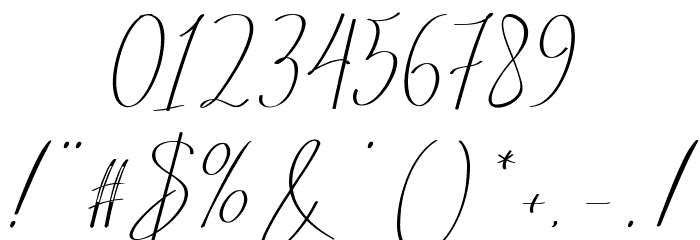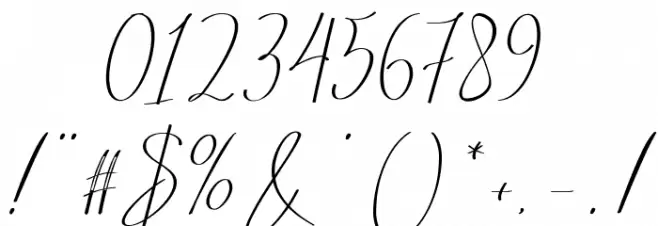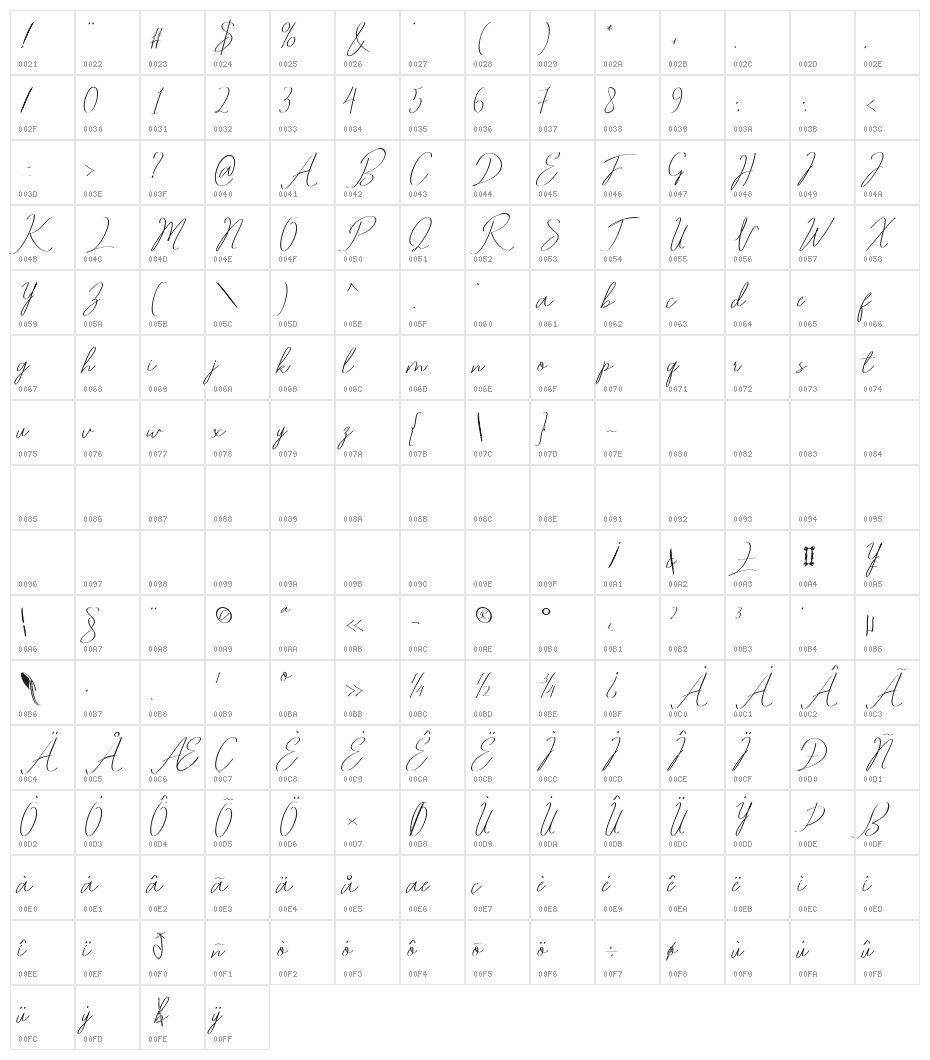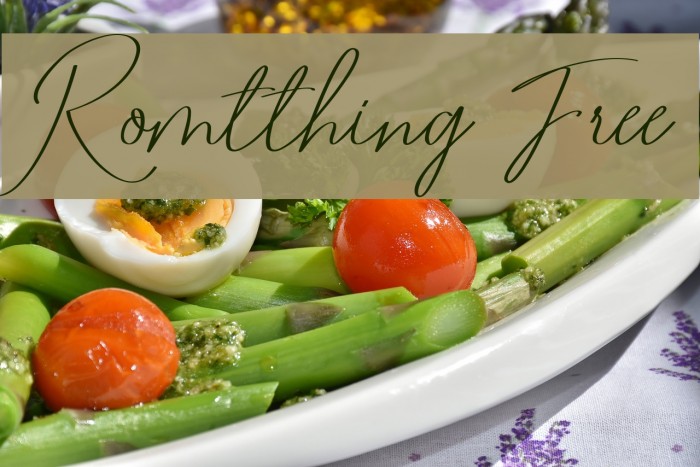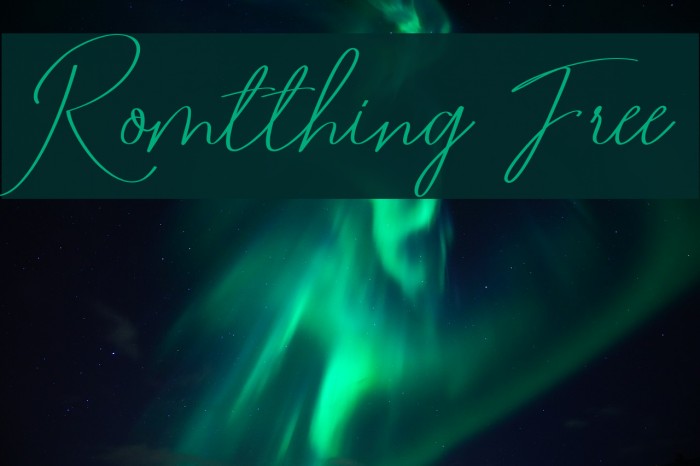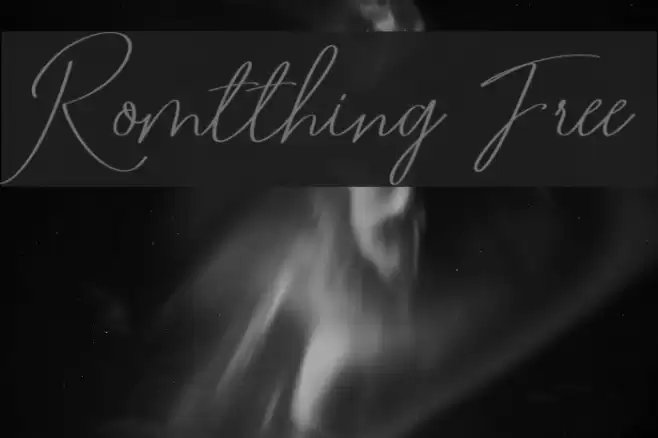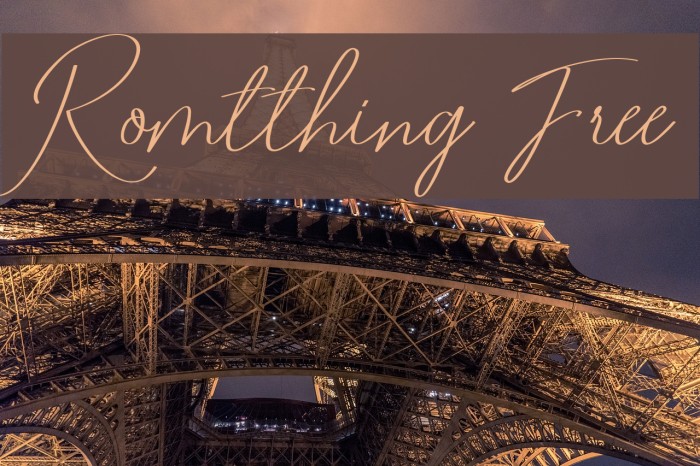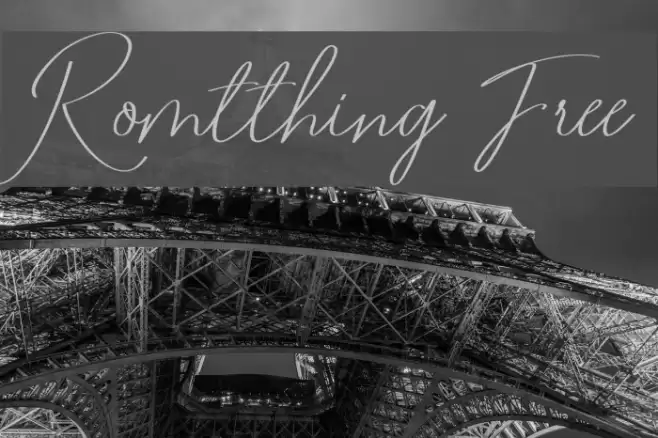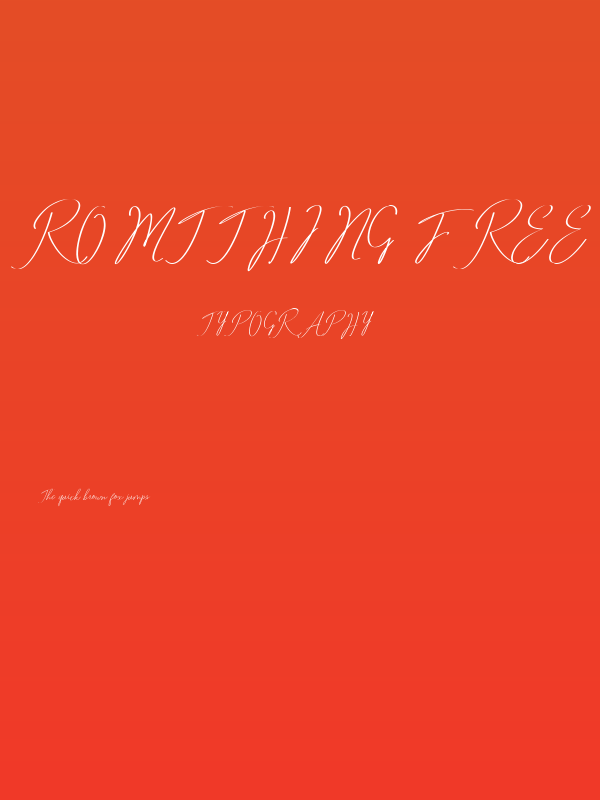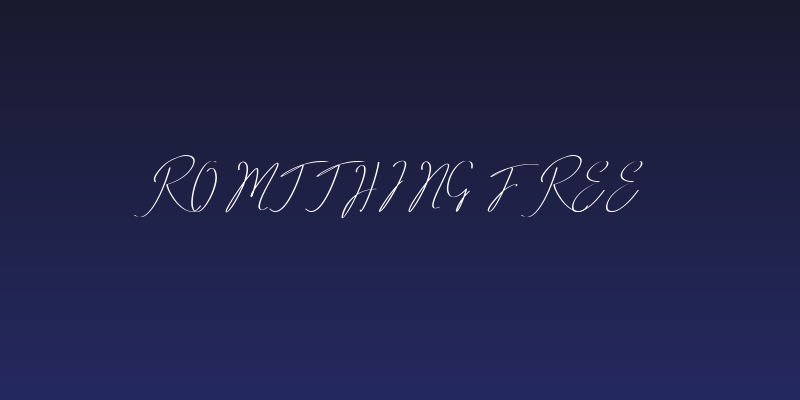
Romtthing Free Font
Romtthing Free Description
This font is an elegant and flowing script style that captures the essence of classic calligraphy. The letters are connected in a smooth, cursive manner, with each character exhibiting a graceful and fluid motion. The uppercase letters are tall and slightly elongated, while the lowercase letters maintain a consistent flow, enhancing readability. The numbers and special characters are designed to complement the overall aesthetic, adding a touch of sophistication. The font's delicate strokes and refined curves make it ideal for projects that require a touch of elegance and formality.
| Proposed Projects | Wedding invitations, formal event programs, elegant branding, and luxury product packaging. |